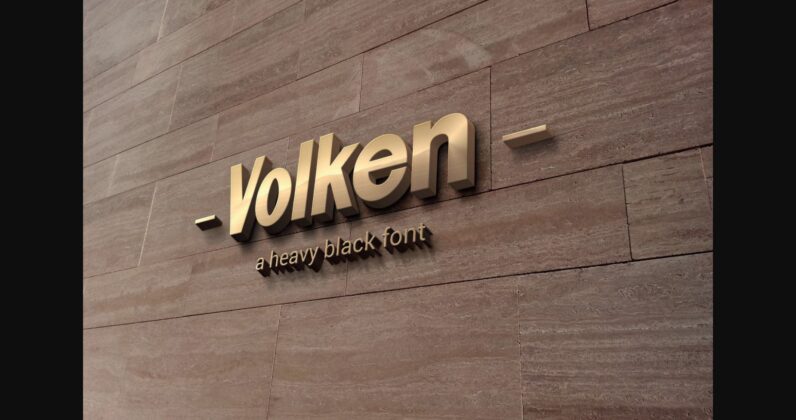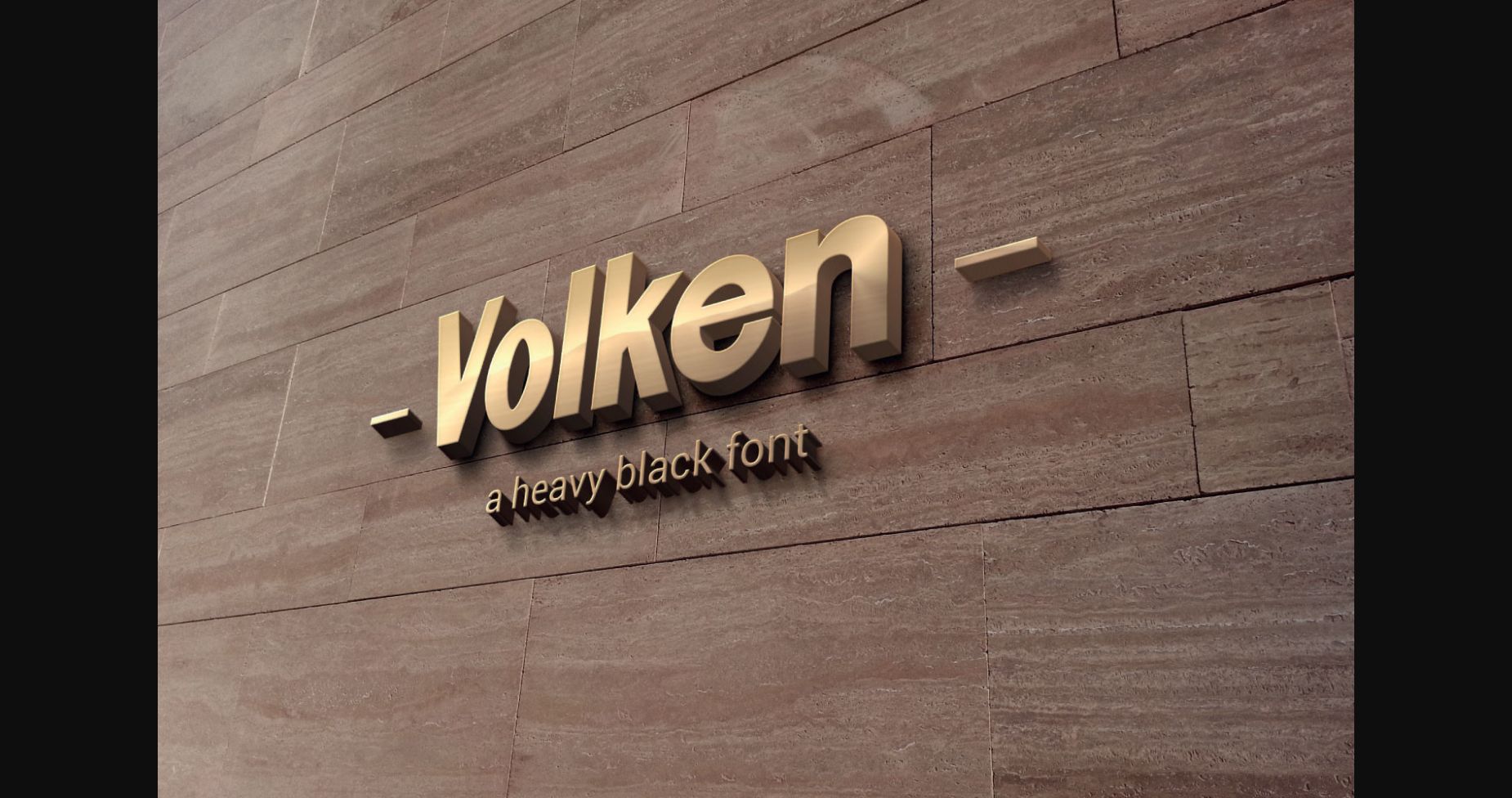
About Volken Font
Volken is a heavy bold sans-serif font. This font is clean and easy to read, perfect for a wide variety of designs. Add it to your most creative ideas, and notice how it makes them come alive.